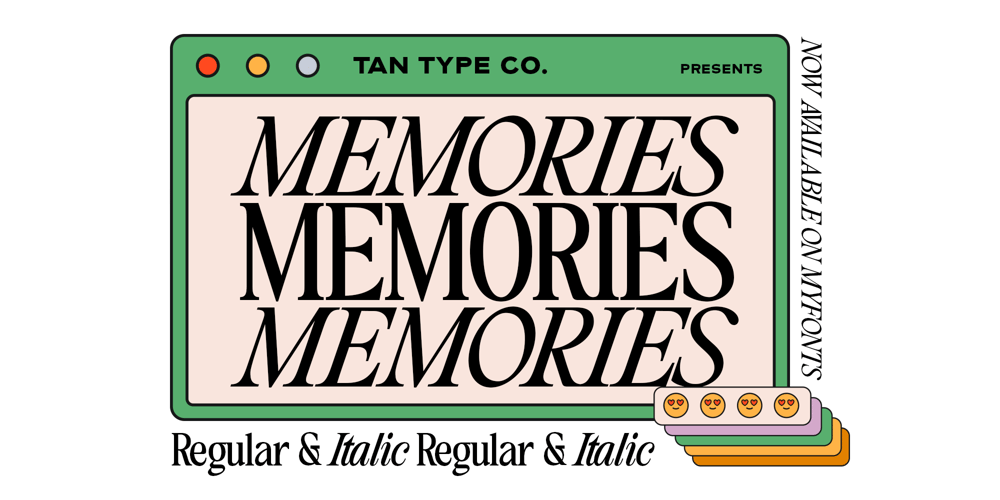
TAN Memories Font Family was designed by Novia Jonatan and published by TANTypeCo.. TAN Memories contains 2 styles and family package options. TAN – MEMORIES is set of serif with tight kerning. Classic and classy. Inspired by the 2000s typography in advertising. Perfect as a compliment for our more ornate typefaces or a standalone when you need subtler mood.